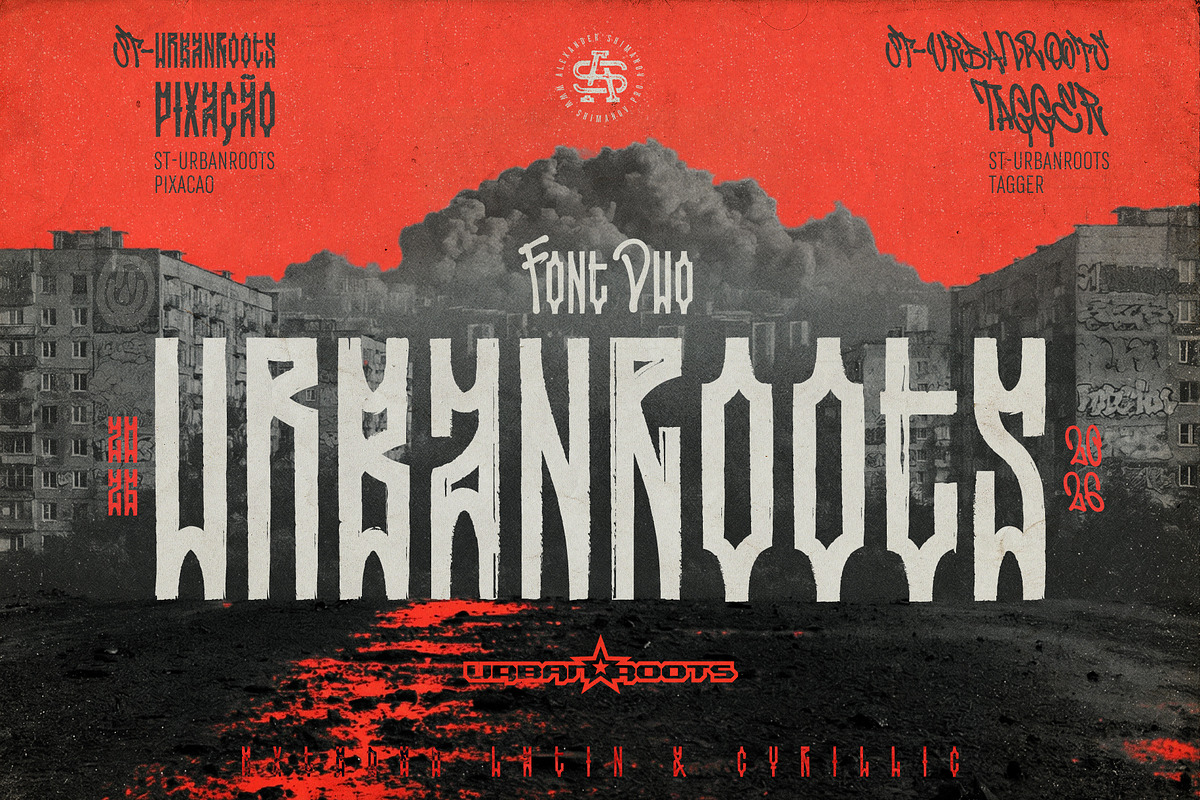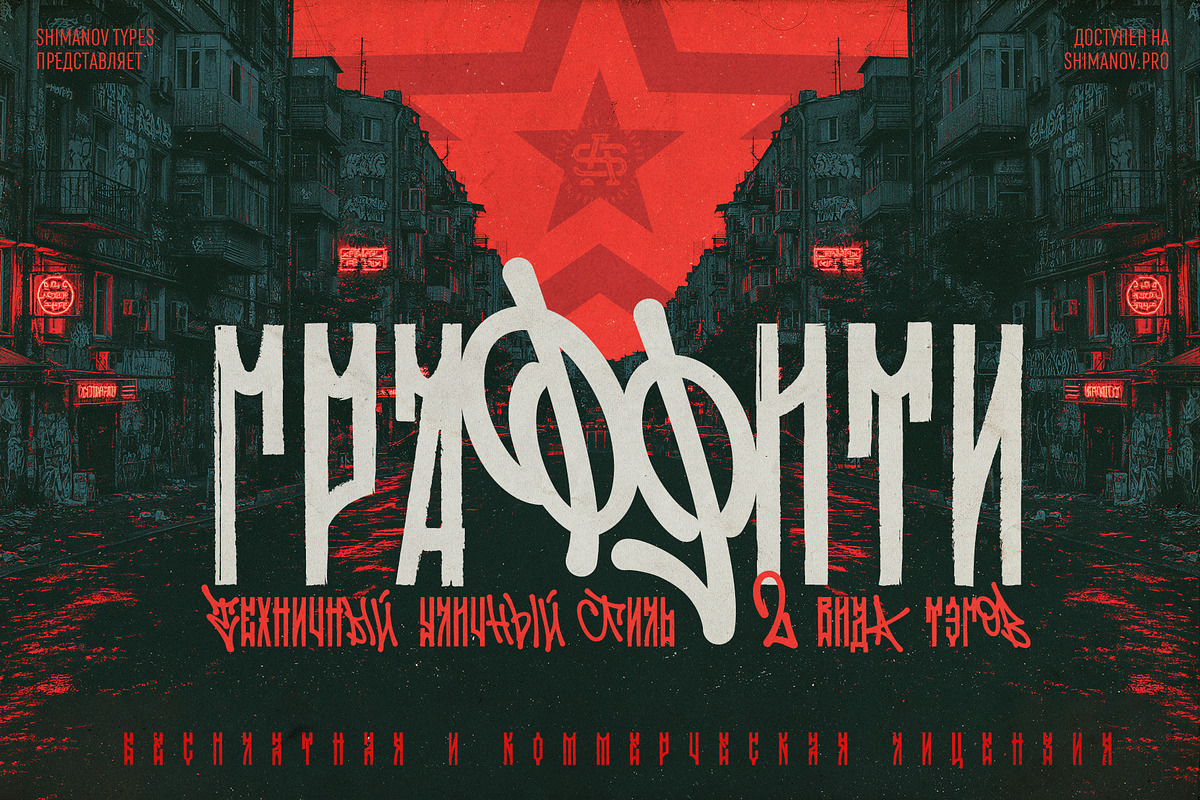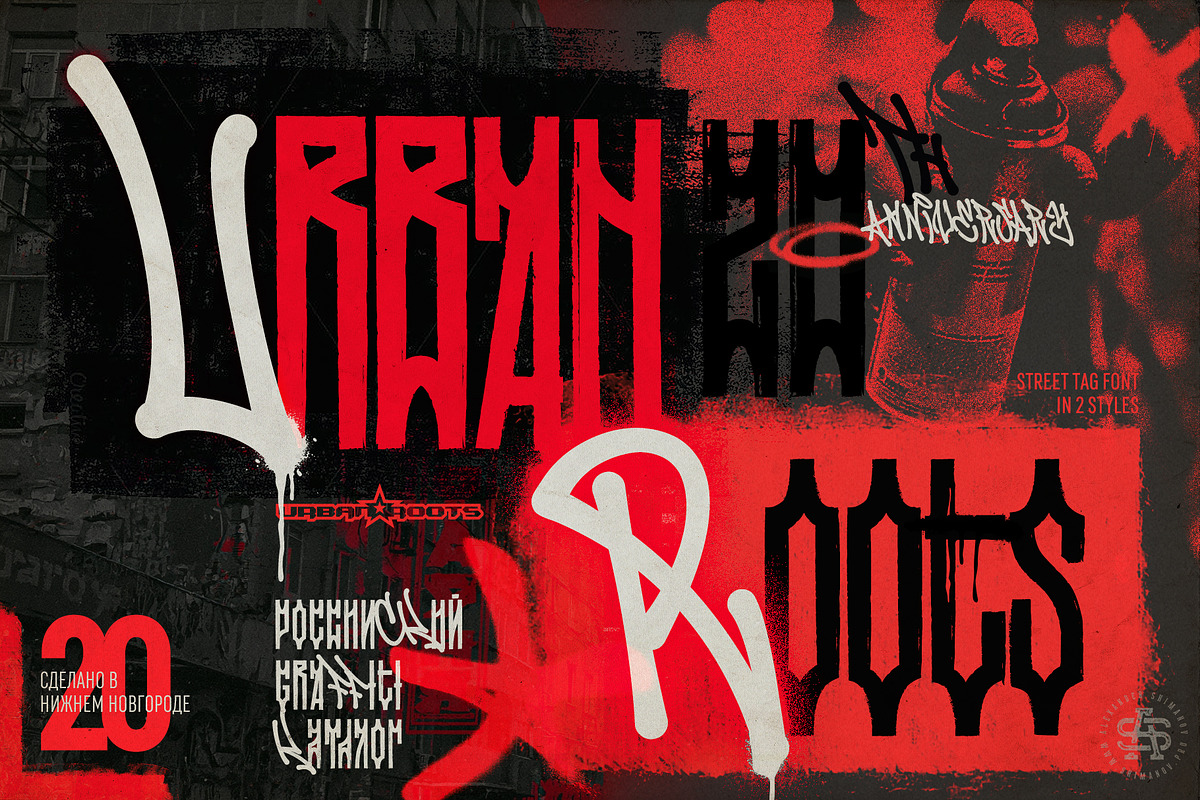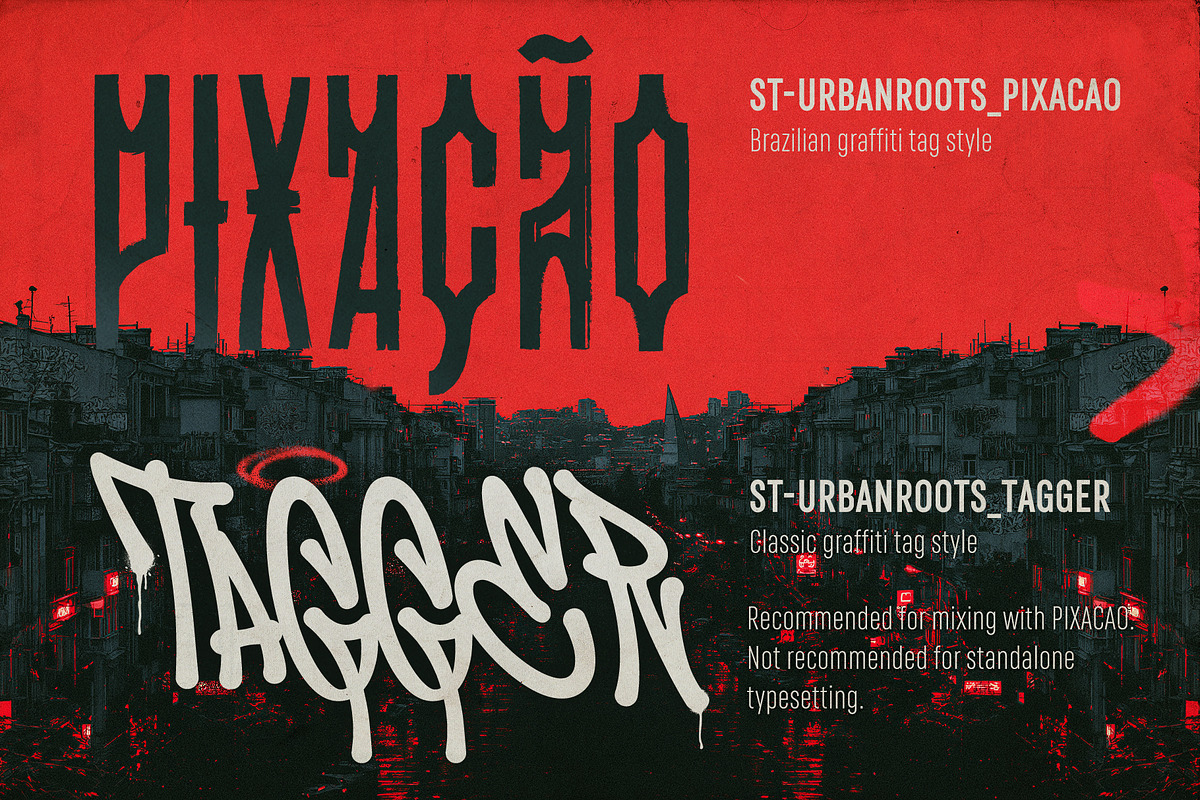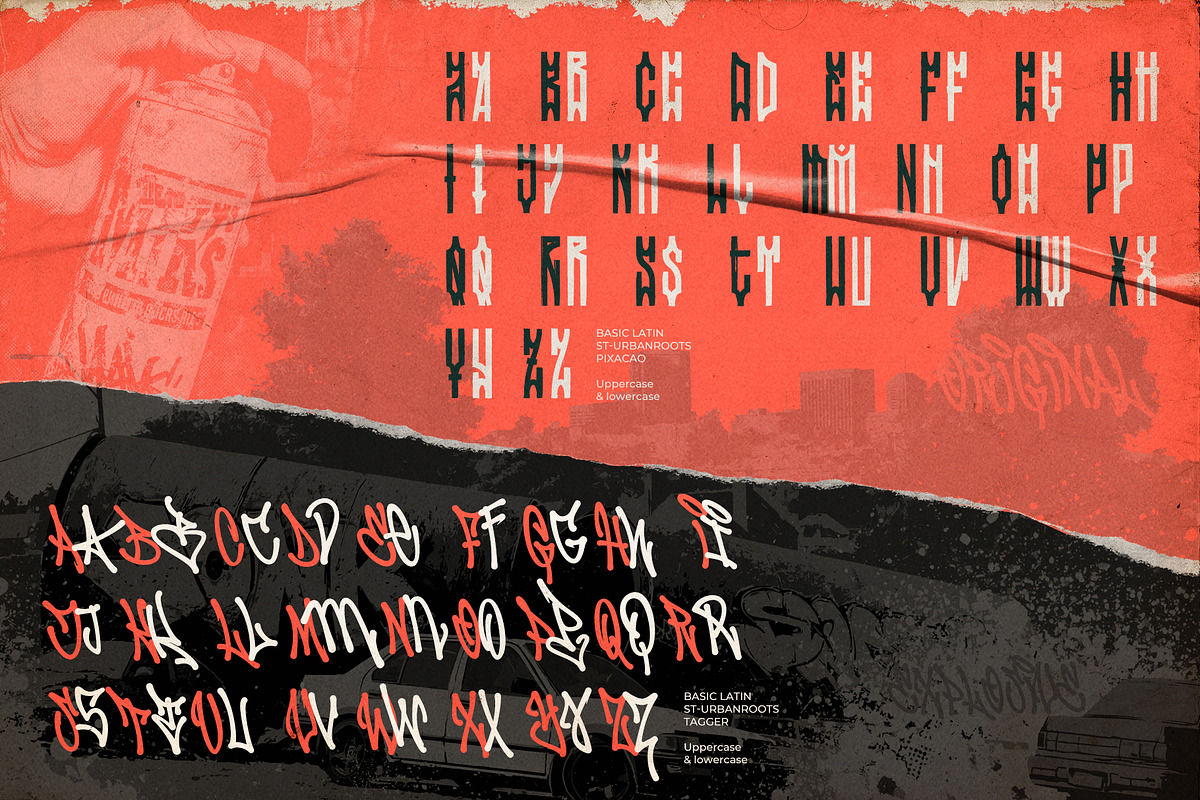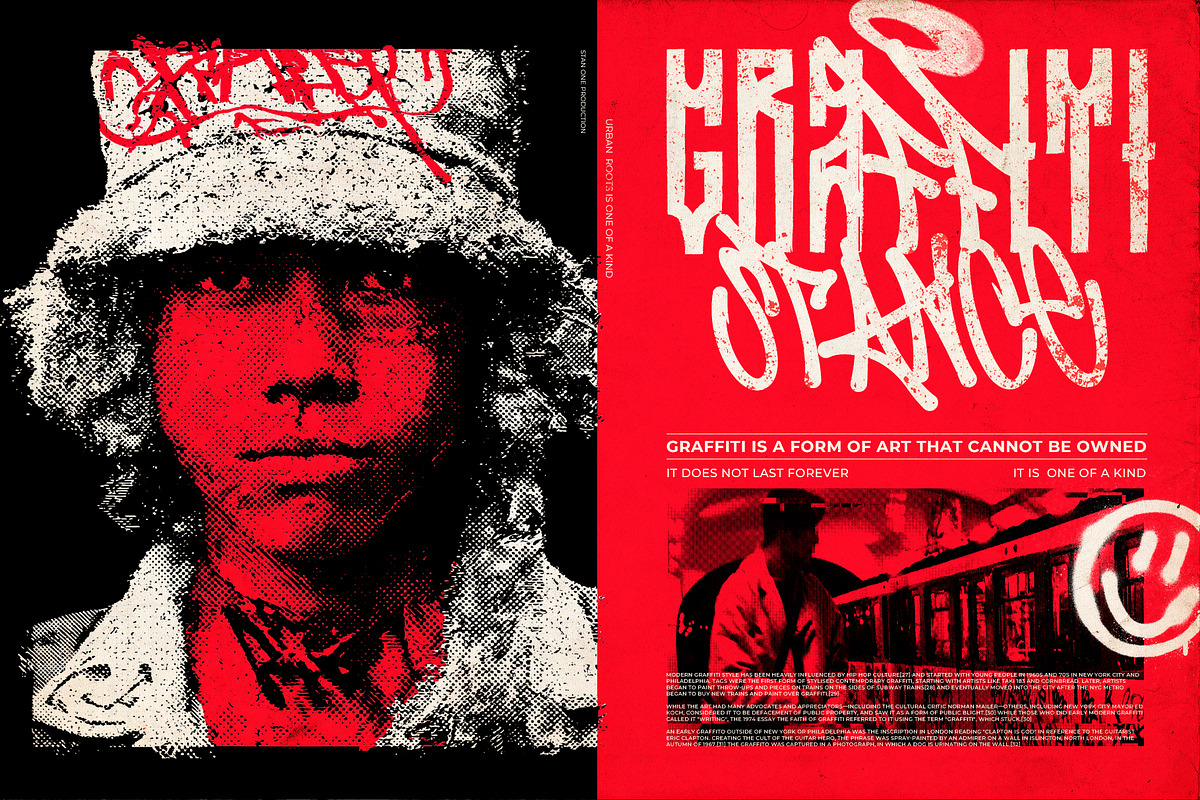
ST-UrbanRoots graffiti tag
ST-UrbanRoots is a graffiti tag font duo built as a complementary type system rather than two standalone fonts. The pair combines two distinct writing traditions from street culture, allowing them to interact, contrast, and reinforce each other within the same composition.
The first style, Pisação, draws inspiration from the iconic graffiti handstyles of Latin America. Influenced by the distinctive vertical rhythm and sharp angular construction of Brazilian pixação, it delivers an aggressive, condensed "urban gothic" aesthetic.
The second style, Tagger, represents a more classic graffiti tagging handstyle. Its flowing connections, dynamic stroke movement, and expressive rhythm make it a natural companion to Pisação, adding expressive disbalance to the family. Because of its complex interconnected forms, Tagger is intended for designers who are comfortable with manual spacing adjustments. Automatic kerning cannot always resolve the intricate relationships between glyphs, so manual kerning is strongly recommended to achieve the best visual results.
In both fonts, uppercase and lowercase function as two stylistic character sets rather than traditional case variants. They can be freely mixed to create custom lettering, richer compositions, and more authentic hand-drawn graffiti aesthetics.
ST-UrbanRoots includes Extended Latin and Cyrillic, numerals, punctuation, making it suitable for a wide range of international projects.
Designed primarily as a display typeface, ST-UrbanRoots is not intended for long passages of text. Instead, it excels in logos, branding, album covers, posters, apparel, packaging, editorial headlines, urban-inspired graphics, and any project that demands the raw energy and expressive character of authentic graffiti culture.